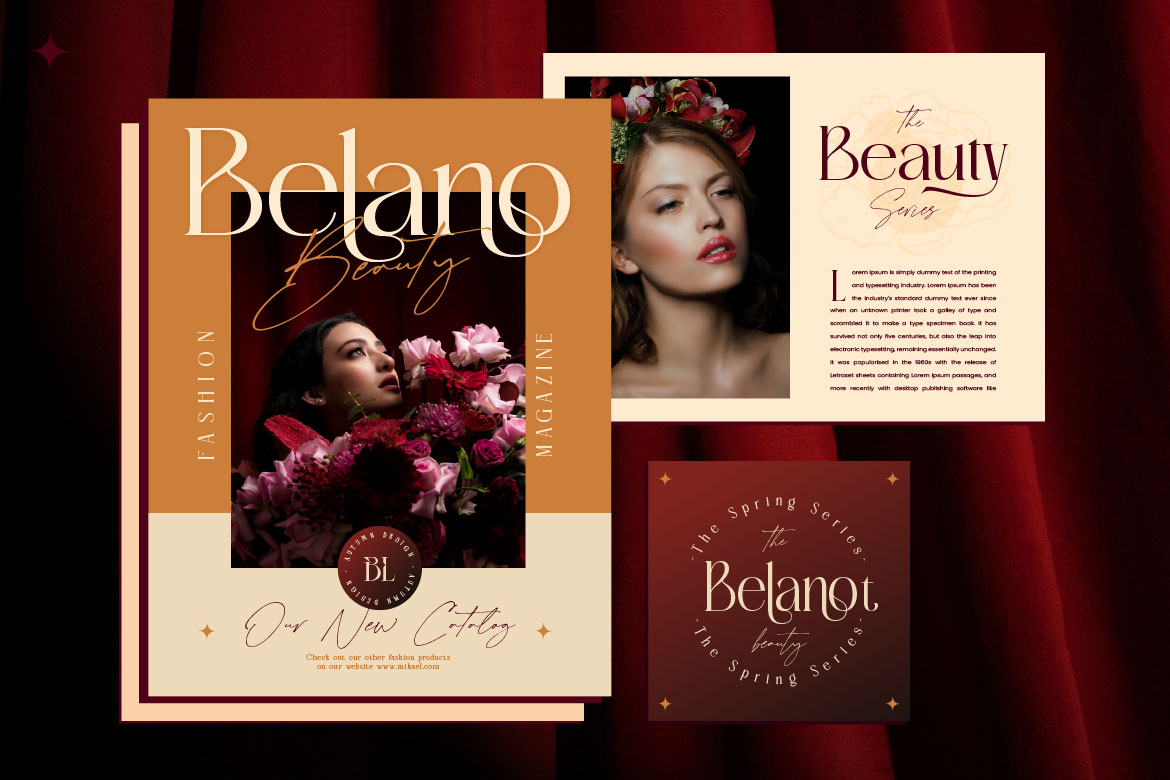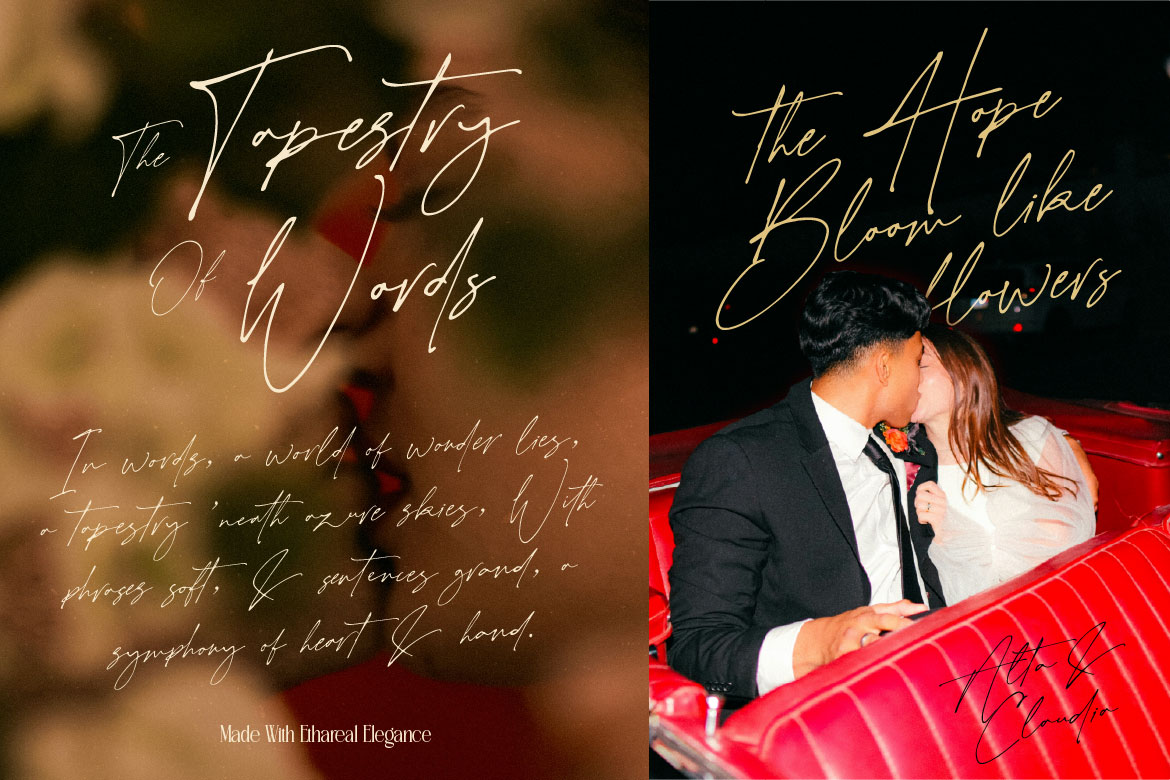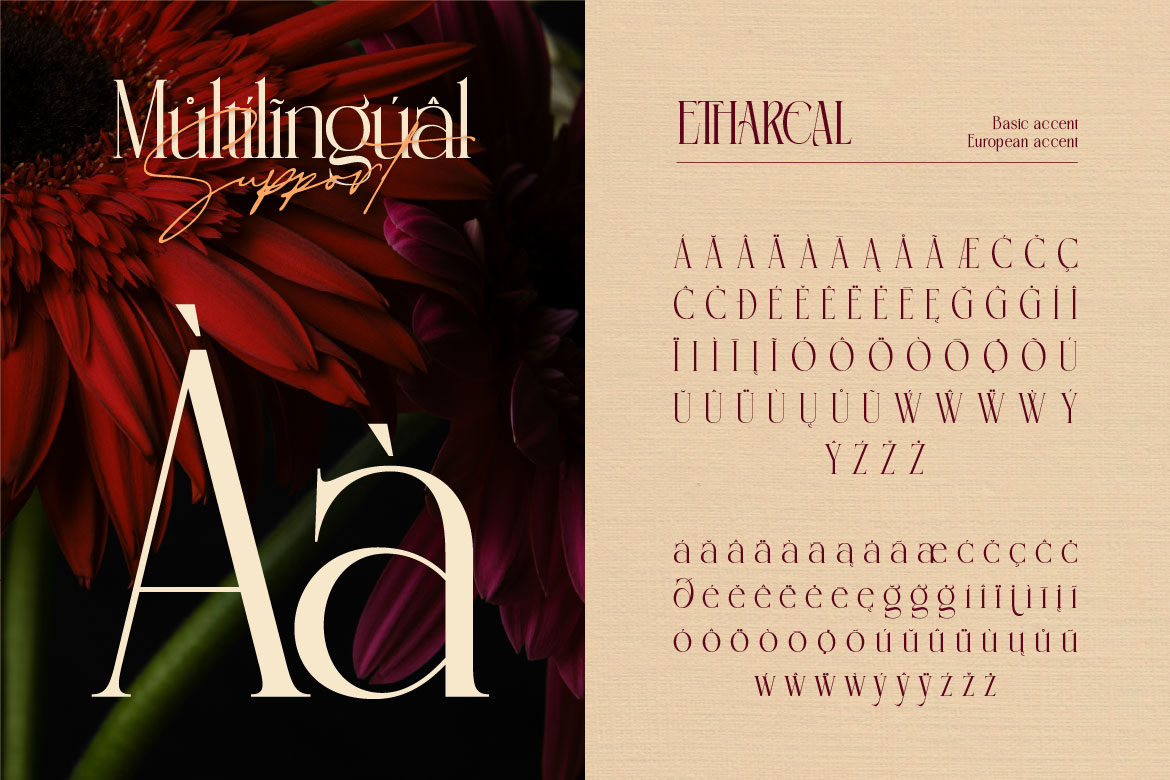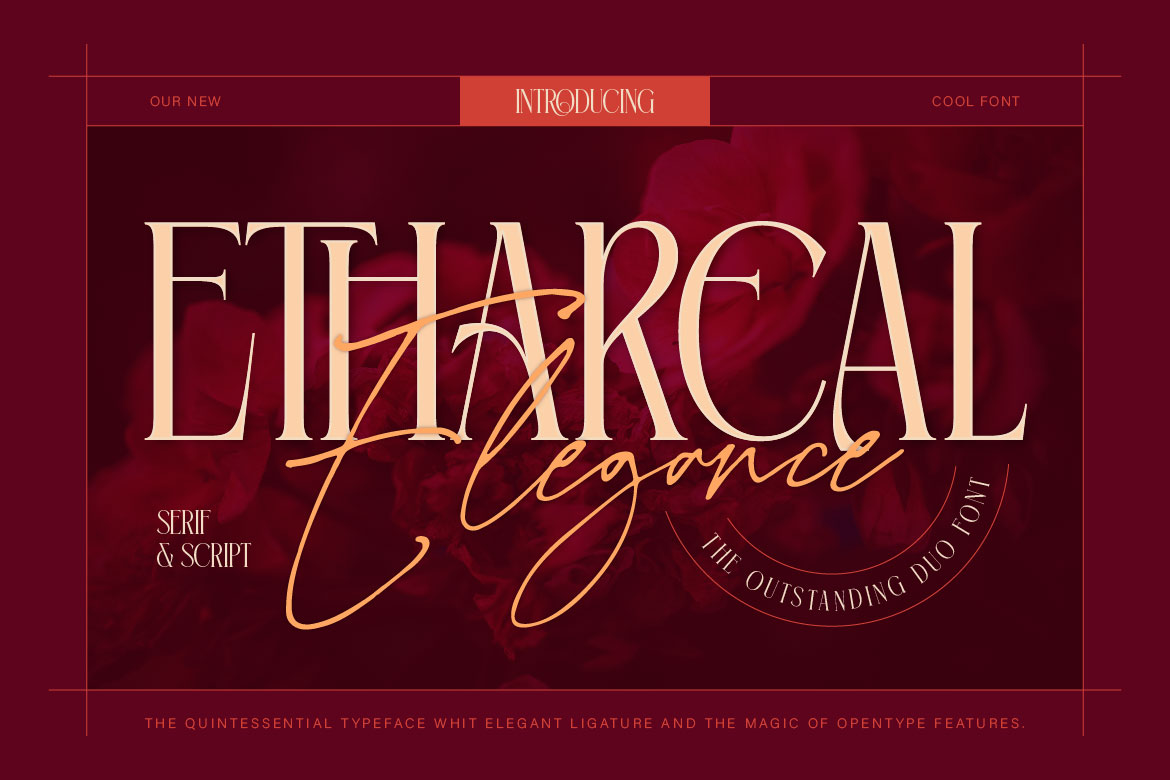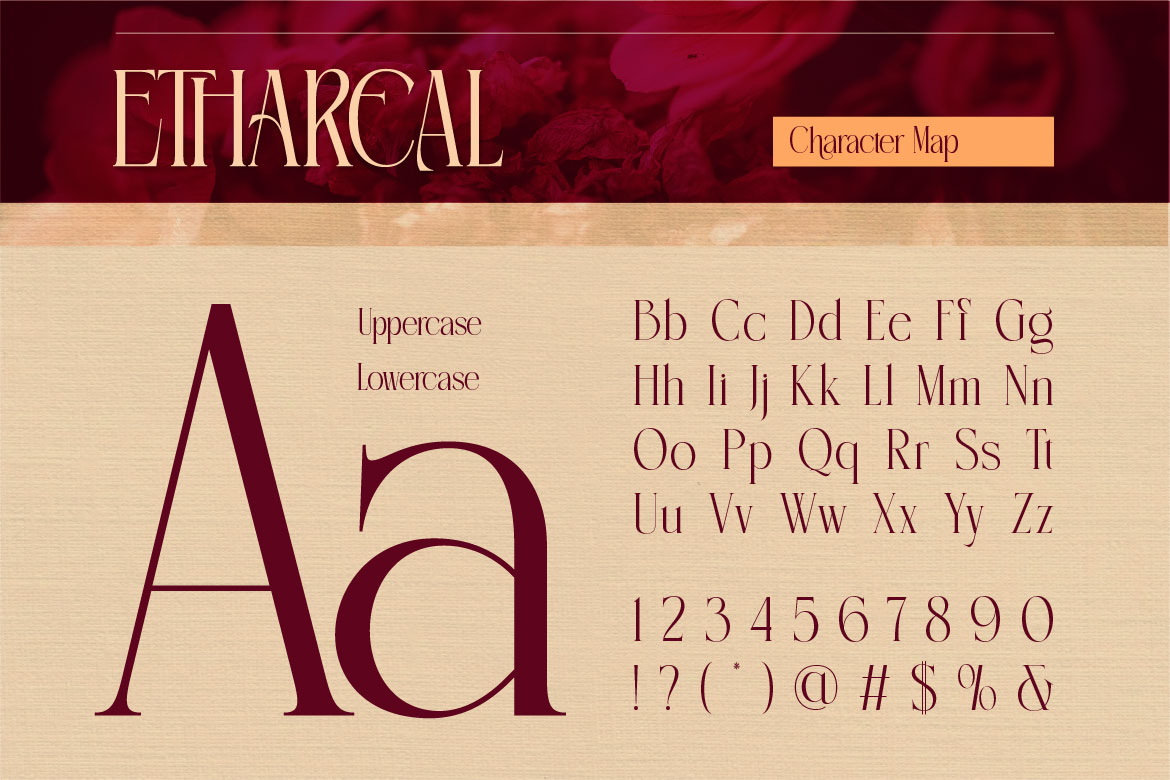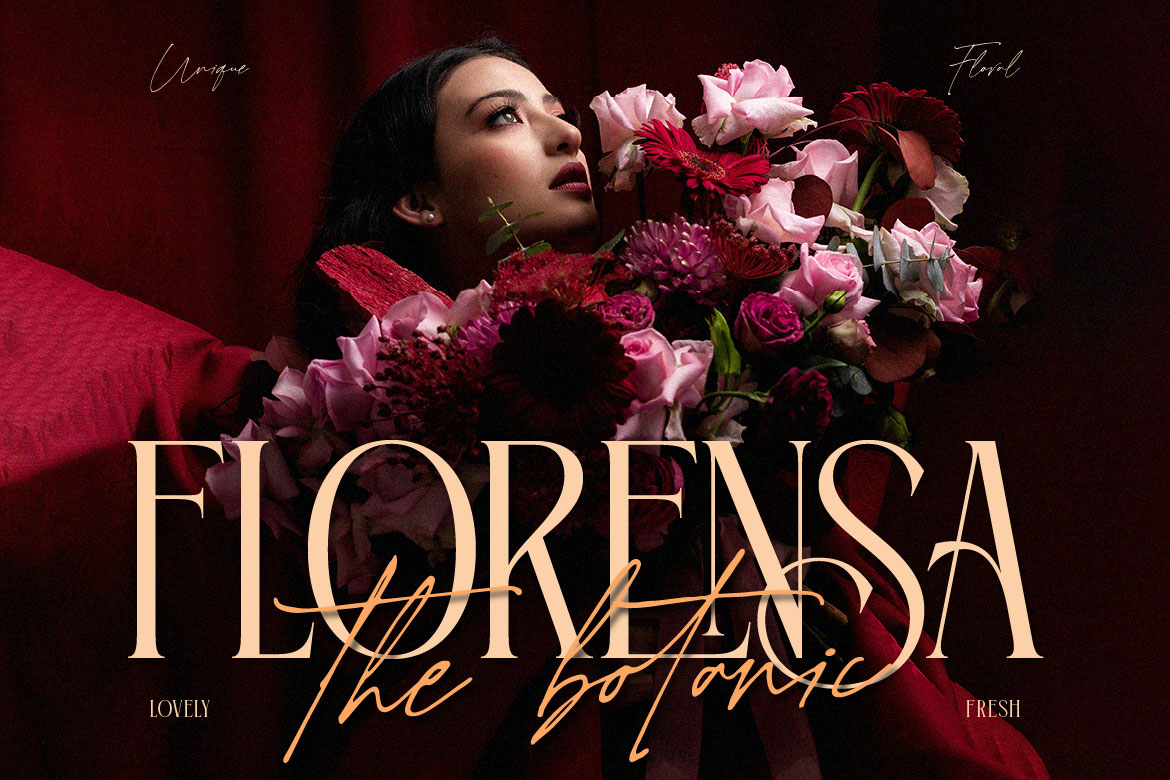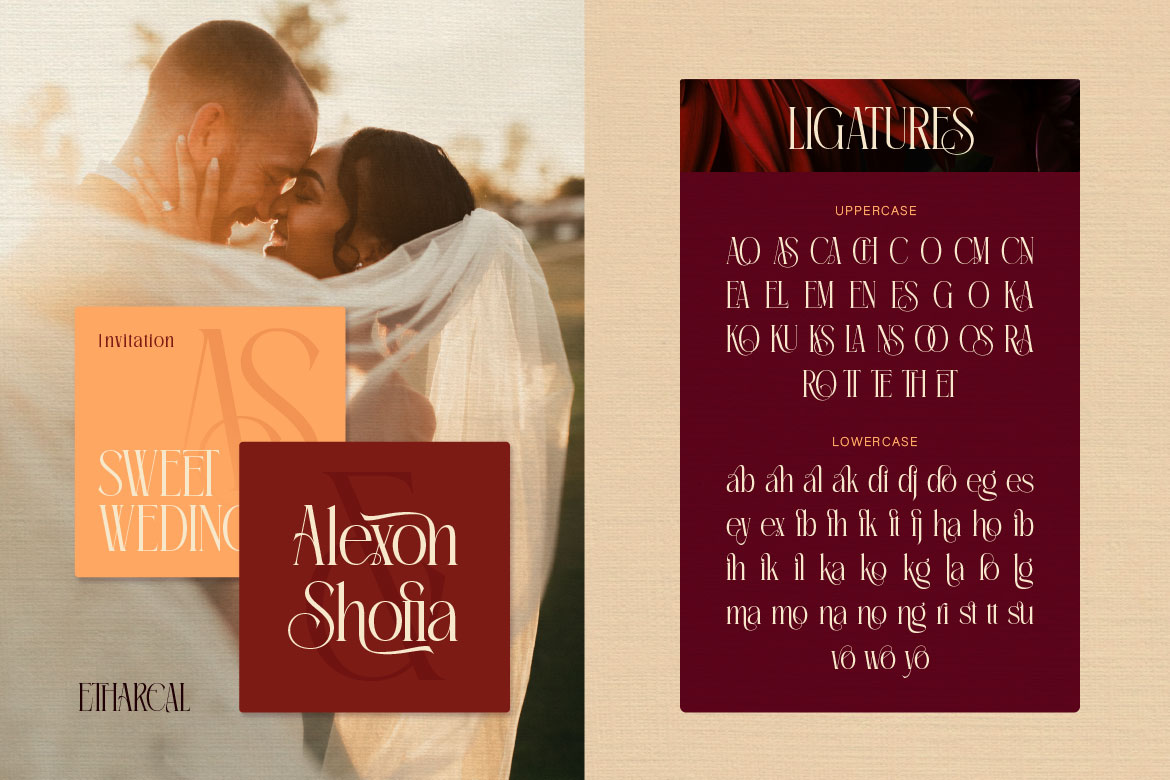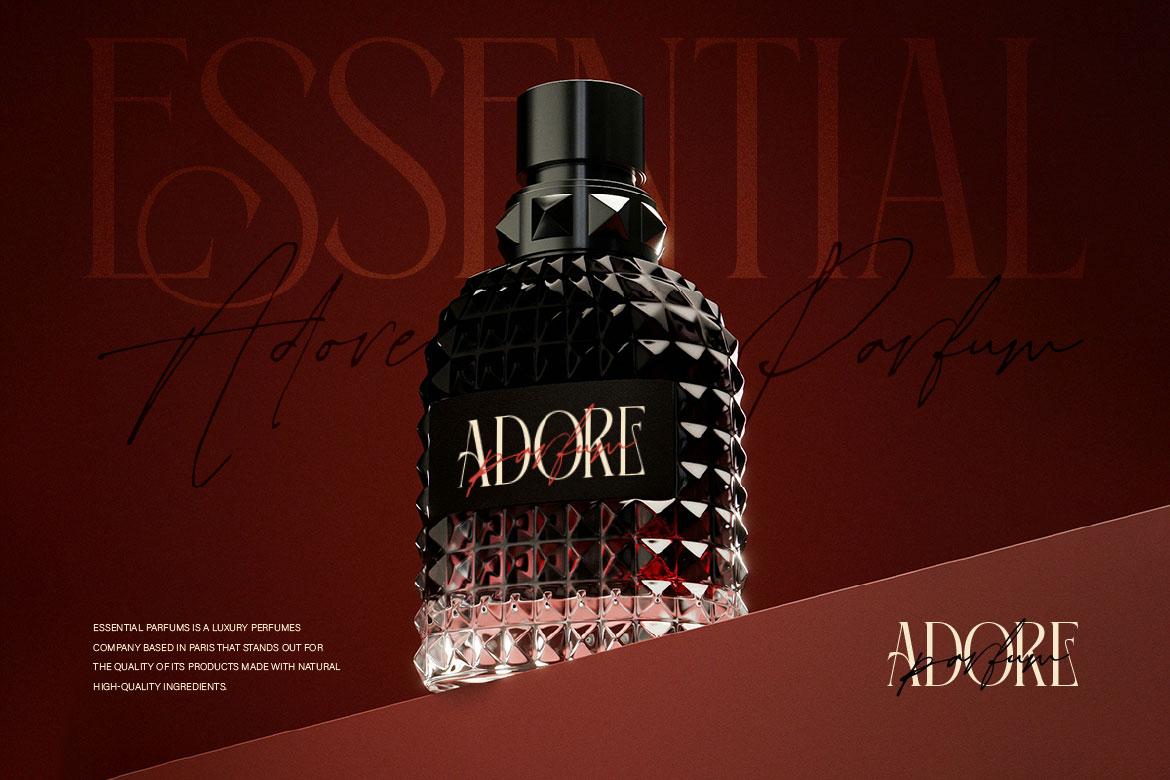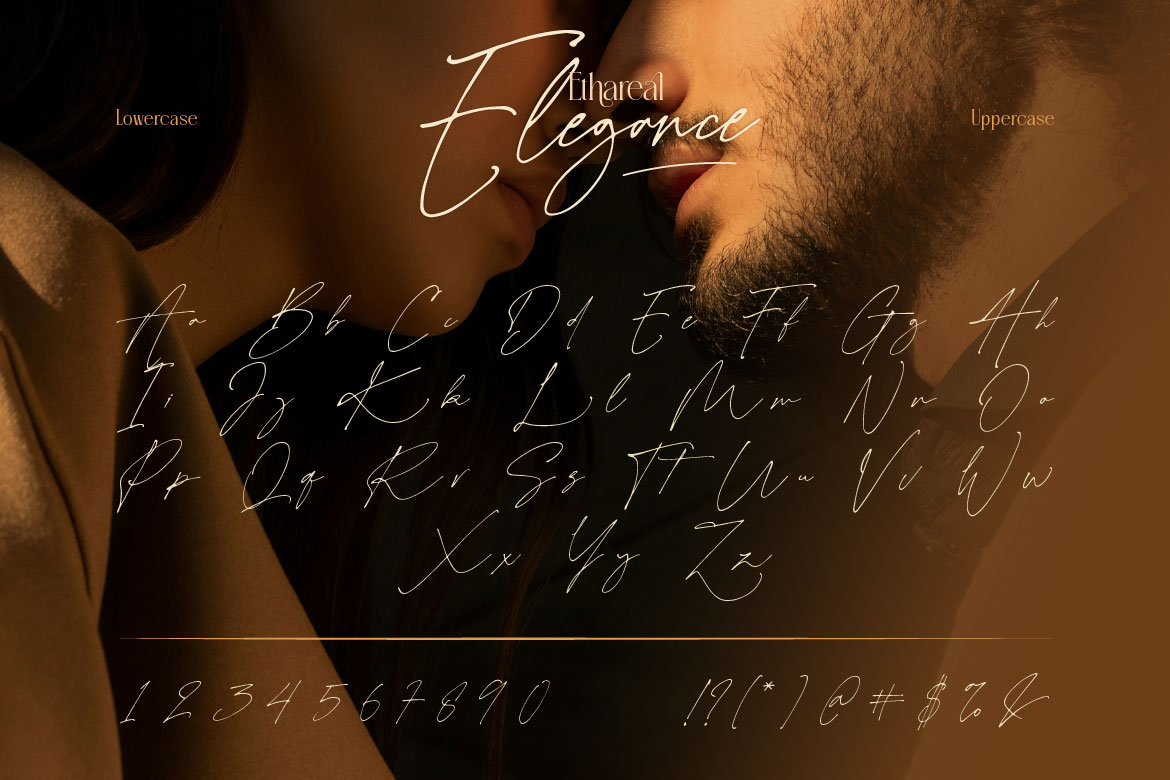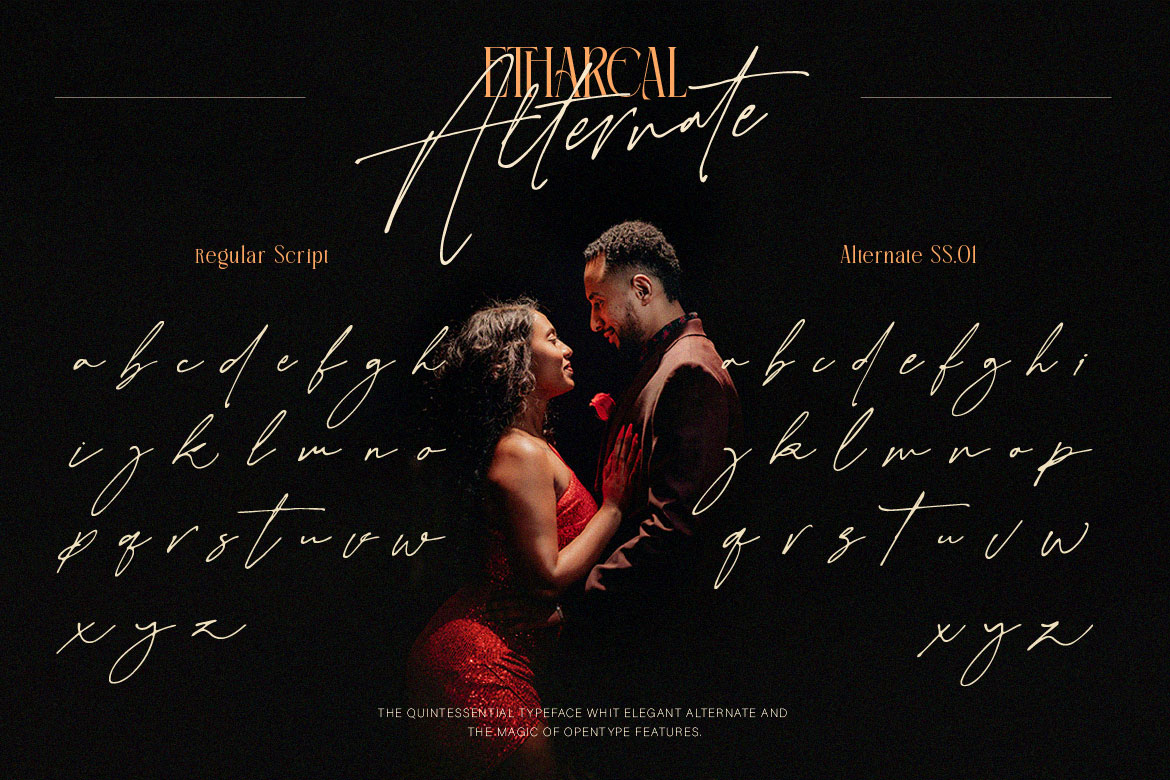
Ethareal Elegance
byBurn Till Dead Studio
Ethareal Elegance
Introducing Ethareal Elegance, duo font that combines classic serif with flowing script. This combination creates harmonious and timeless beauty. The font is as beautiful as a couple in love. With alternates and ligatures, this font will never go out of style and can be used for various design project that need touch of elegance. Perfect for branding and logos, wedding invitation, editorial design, packaging design, social media and many more
• A – Z set (Uppercase & Lowercase)
• Number
• Punctuation
• Alternates
• Ligatures
• Multilingual
• Ethereal Elegance Characters Map